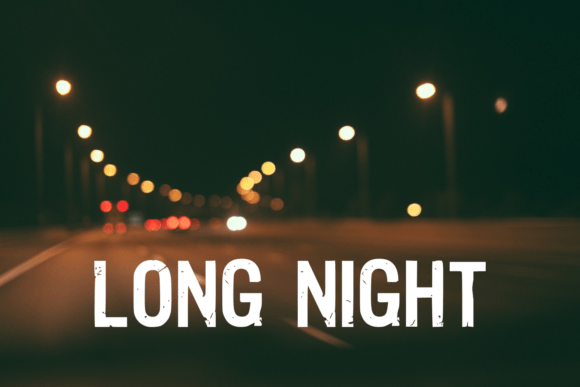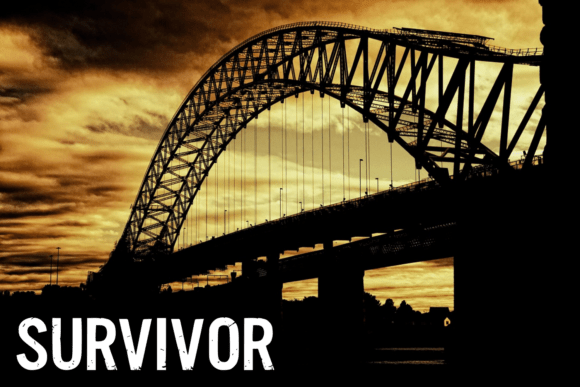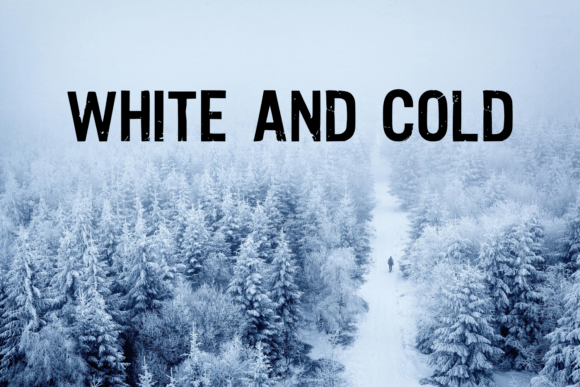
Discover the Timeless Elegance of Endurance Font
Are you a designer or crafter looking for a font that can elevate your creative projects to the next level? Look no further than Endurance Font, a lovely and timeless sans serif font that is perfect for creating eye-catching logos, branding, and quotes. With its unique and beautiful touch, Endurance Font is sure to make your design come alive!
The Characteristics of Endurance Font
Endurance Font is a sans serif font, which means it doesn’t have the small lines or flourishes that are commonly found at the ends of letters in serif fonts. This makes it a clean and modern choice for designers who want to create a sleek and sophisticated look. Despite its modern aesthetic, Endurance Font has a timeless quality that makes it suitable for a wide range of design projects, from vintage-inspired branding to contemporary logos.
What Makes Endurance Font Stand Out
So, what sets Endurance Font apart from other sans serif fonts on the market? The answer lies in its unique and beautiful touch. Every letter in Endurance Font has been carefully crafted to have its own distinct character, which gives the font a sense of personality and charm. Whether you’re using Endurance Font to create a logo, a quote, or a branding campaign, you can be sure that your design will stand out from the crowd.
Endurance Font is an incredibly versatile font that can be used for a wide range of design projects. Its clean and modern aesthetic makes it perfect for creating eye-catching logos that will help your brand stand out in a crowded market. Additionally, Endurance Font is well-suited for branding campaigns, as its timeless quality ensures that your design will remain relevant for years to come.
Why Designers and Crafters Love Endurance Font
Designers and crafters love Endurance Font for many reasons. For one, its unique and beautiful touch makes it a joy to work with. Additionally, the font’s versatility and timeless quality make it suitable for a wide range of design projects, from logos and branding to quotes and social media graphics. Whether you’re a professional designer or a crafter who loves to create things in your free time, Endurance Font is sure to become a favorite in your toolkit.
Tips for Using Endurance Font
Here are a few tips for getting the most out of Endurance Font:
- Experiment with different font sizes and colors to find the perfect combination for your design.
- Use Endurance Font to create a consistent look across all of your branding materials, from logos to business cards.
- Don’t be afraid to get creative with Endurance Font – its unique and beautiful touch makes it perfect for use in a wide range of design projects.
In conclusion, Endurance Font is a timeless and elegant sans serif font that is perfect for designers and crafters who want to create eye-catching logos, branding, and quotes. With its unique and beautiful touch, Endurance Font is sure to make your design come alive! Whether you’re a professional designer or a crafter who loves to create things in your free time, Endurance Font is a great choice for any design project.